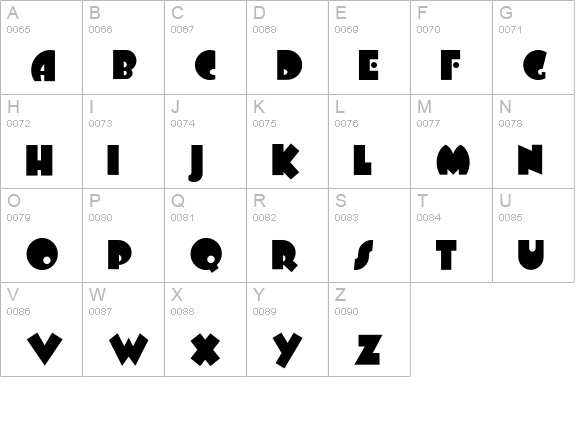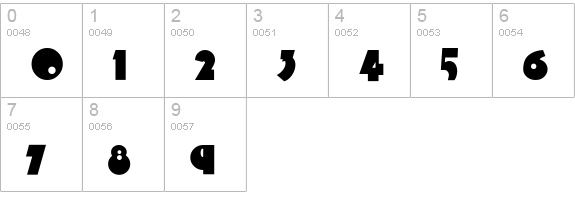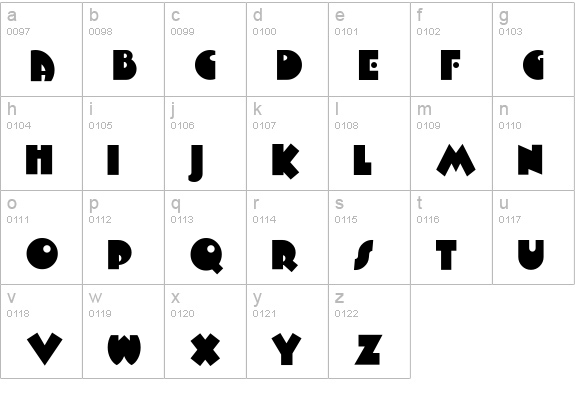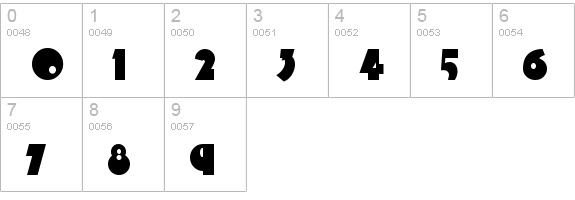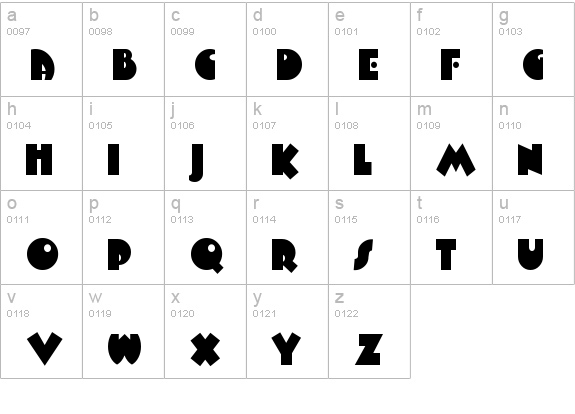
ArbuckleFat Font Details
The ArbuckleFat font exudes a bold and commanding presence, making it perfect for headlines, titles, and other eye-catching design elements. Its thick and robust letterforms are sure to make a statement and leave a lasting impression on any project. With a touch of retro charm and a modern twist, ArbuckleFat strikes the perfect balance between nostalgia and contemporary design trends. Best of all, ArbuckleFat is available for free download at FontsMarket.com, making it easily accessible for designers and creatives looking to add a touch of personality to their work. Whether you're working on a poster, logo, or any other design project, ArbuckleFat is sure to elevate your creations and help you stand out from the crowd. Download this unique and versatile font today and unleash your creativity!